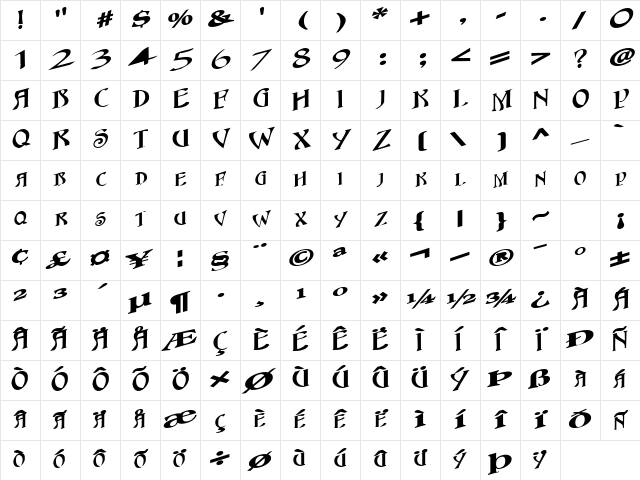
Complete GoalSetterPlus67 Bold glyph index. Displaying only characters natively supported by GoalSetterPlus67 Bold font.
GoalSetterPlus67 is a composed and adaptable typeface that performs quietly and consistently across a wide range of design contexts. Its bold stroke weight gives it real presence on the page.